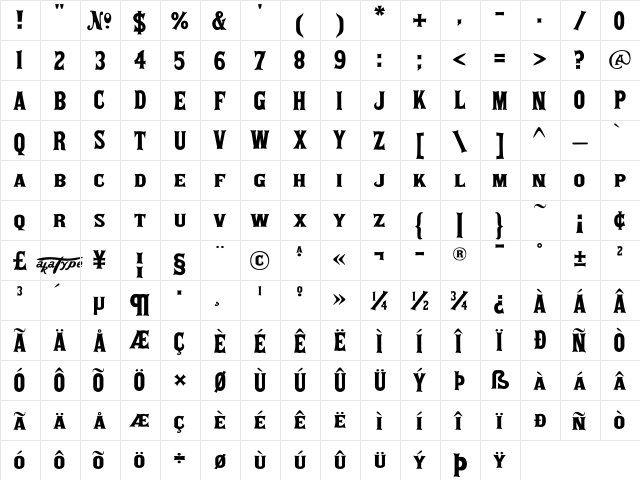
akaPosse Regular
Design Context for akaPosse Typeface
akaPosse is a composed and adaptable typeface that performs quietly and consistently across a wide range of design contexts.